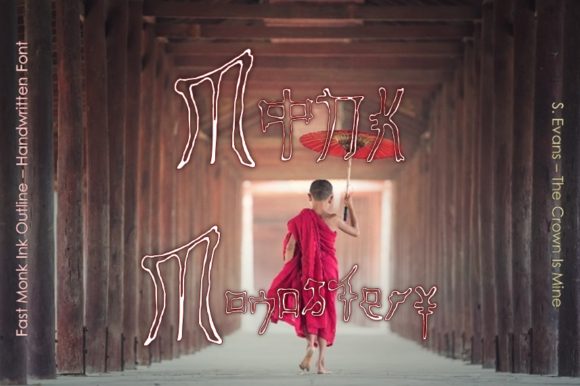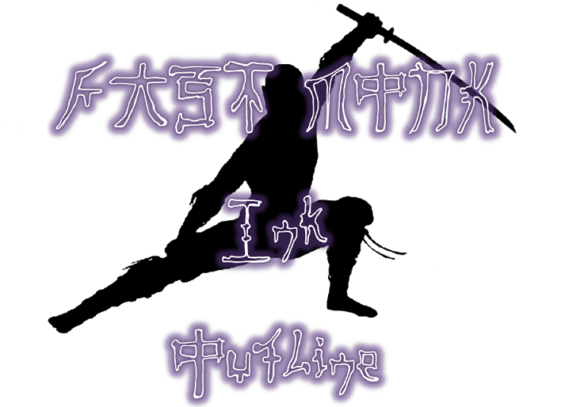
Introducing Fast Monk Ink Outline Font: Elevate Your Design with an Eastern Touch
Are you looking for a font that can add a unique and bold flair to your design projects? Look no further than the Fast Monk Ink Outline Font. This stunning font is inspired by traditional Eastern calligraphy and is sure to elevate your designs with its distinctive style. In this article, we’ll explore the features and benefits of Fast Monk Ink Outline Font and how it can be used to add an Eastern touch to any design project.
The Inspiration Behind Fast Monk Ink Outline Font
Fast Monk Ink Outline Font is inspired by the traditional calligraphy of Eastern cultures. The font’s bold and expressive lines are reminiscent of ancient ink paintings and manuscripts, giving it a unique and authentic feel. The font’s design is characterized by its confident and dynamic strokes, which are sure to add a touch of elegance and sophistication to any design project.
Key Features of Fast Monk Ink Outline Font
Fast Monk Ink Outline Font has several key features that make it an ideal choice for designers and crafters. Some of its notable features include:
• Bold and Expressive Lines: The font’s bold and expressive lines are perfect for creating eye-catching designs that demand attention.
• Eastern-Inspired Design: The font’s Eastern-inspired design gives it a unique and distinctive style that is sure to add an exotic touch to any design project.
• High-Quality Vector Graphics: The font is designed as high-quality vector graphics, ensuring that it remains crisp and clear even at large sizes.
• Easily Customizable: The font is easily customizable, allowing designers to adjust the size, color, and style to suit their needs.
How to Use Fast Monk Ink Outline Font in Your Design Projects
Fast Monk Ink Outline Font is a versatile font that can be used in a variety of design projects, including:
• Logos and Branding: The font’s bold and expressive lines make it perfect for creating eye-catching logos and branding materials.
• Posters and Flyers: The font’s Eastern-inspired design makes it ideal for creating posters and flyers that need to stand out.
• Digital Art and Illustrations: The font’s unique style makes it perfect for adding text to digital art and illustrations.
• Crafting and Scrapbooking: The font’s bold and expressive lines make it perfect for use in crafting and scrapbooking projects.
Tips and Tricks for Getting the Most Out of Fast Monk Ink Outline Font
Here are some tips and tricks for getting the most out of Fast Monk Ink Outline Font:
• Experiment with Different Sizes and Colors: Don’t be afraid to experiment with different sizes and colors to find the perfect combination for your design.
• Use it with Other Fonts: Fast Monk Ink Outline Font pairs well with other fonts, so don’t be afraid to use it in combination with other typefaces.
• Add Texture and Patterns: Adding texture and patterns to your design can help to give it an extra layer of depth and interest.
Fast Monk Ink Outline Font is a unique and versatile font that is sure to add an Eastern touch to any design project. With its bold and expressive lines, high-quality vector graphics, and easily customizable design, it’s the perfect choice for designers and crafters looking to create eye-catching and distinctive designs. So why not get inspired by its bold feel and try Fast Monk Ink Outline Font today?